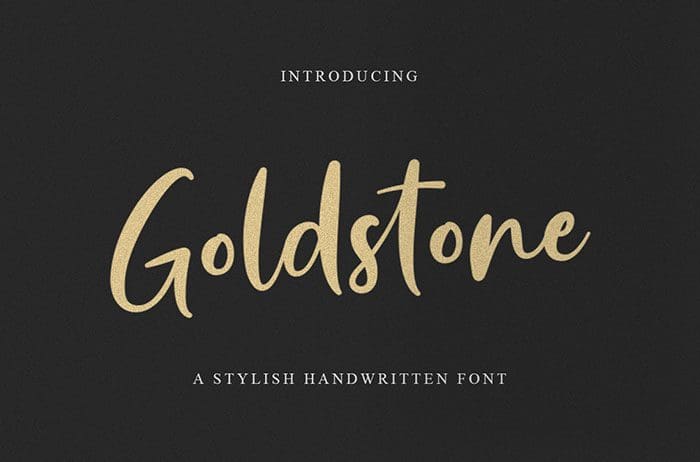
Free Goldstone Handwritten Font
Free Goldstone Handwritten Font is a stylish with unique style. Goldstone font perfect for stationery, logo, typography quotes, and more. This font is available only for personal use. Created this font by Teguh Subiyantoro. You can also search more freeĀ Handwritten Fonts. Thanks!